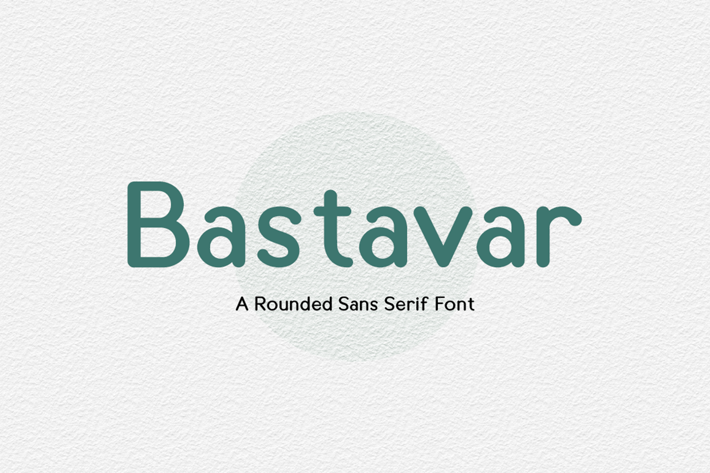
Bastavar - Modern Advertisement Font
Bastavar is a sans serif font. It features a minimalistic and modern look. Its versatility will apply to a wide range of crafty ideas, from letterheads and titles, to stationery.